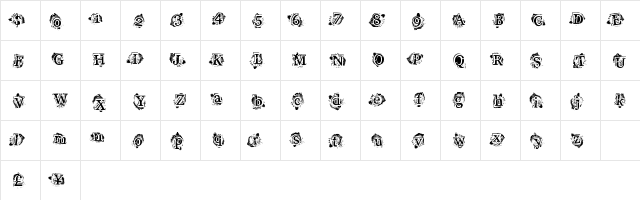
HighStyle Regular
| Foundry | Xerographer Fonts |
| Designer | Xerographer Fonts Max Infeld |
Design Context for HighStyle Typeface
HighStyle is a composed and adaptable typeface that performs quietly and consistently across a wide range of design contexts.